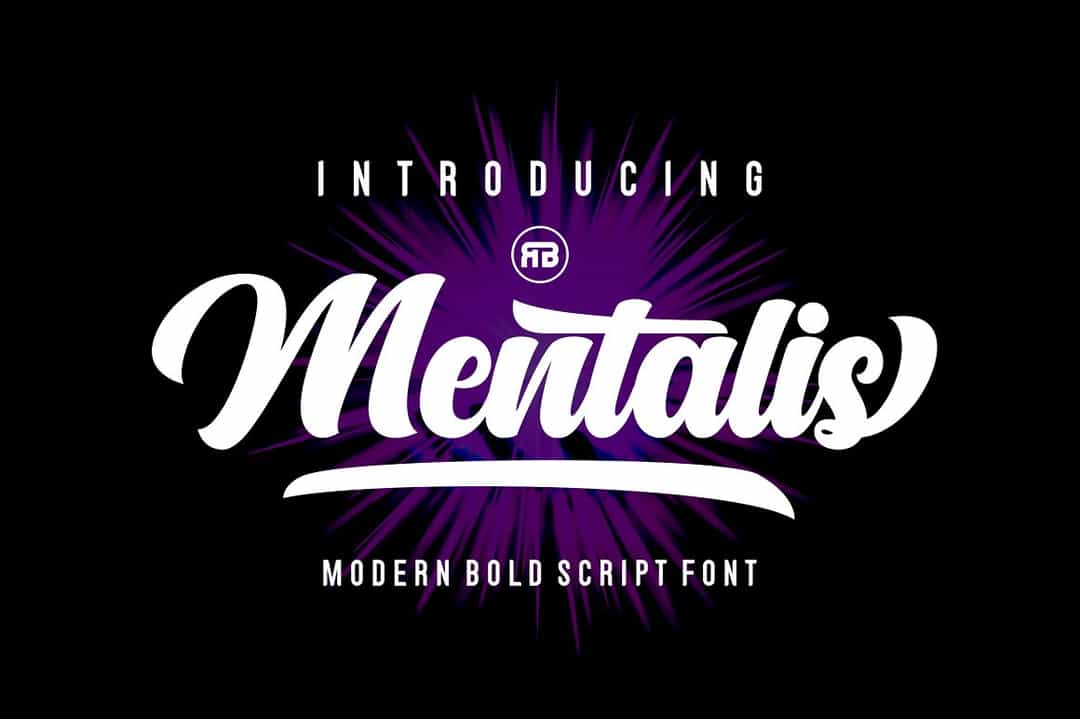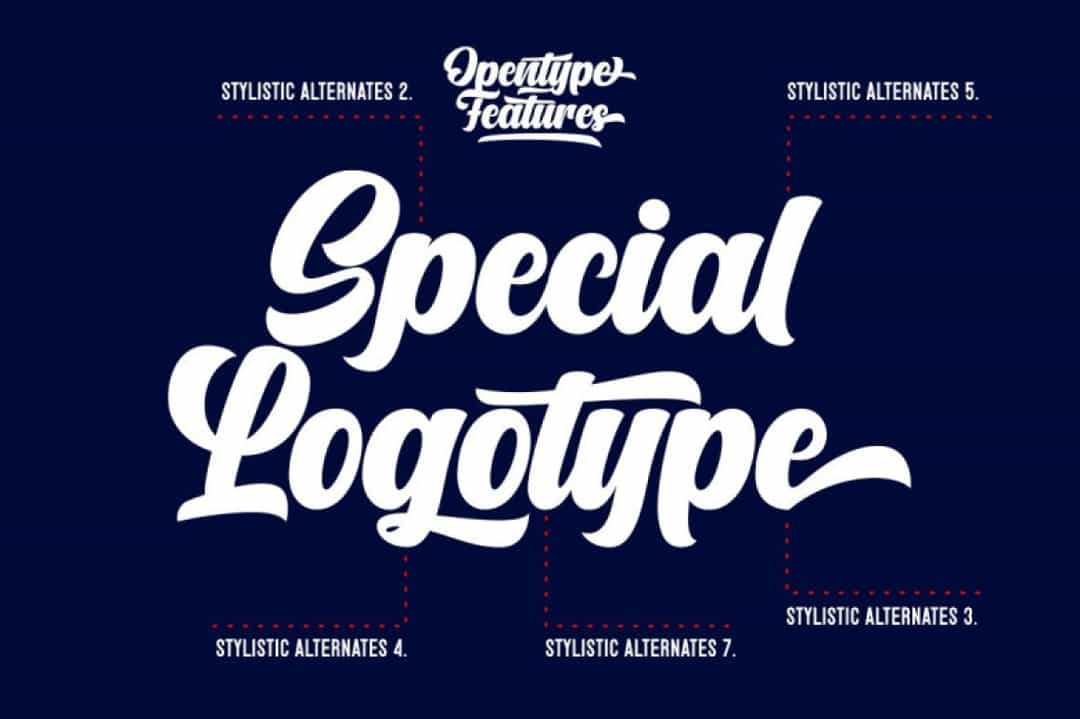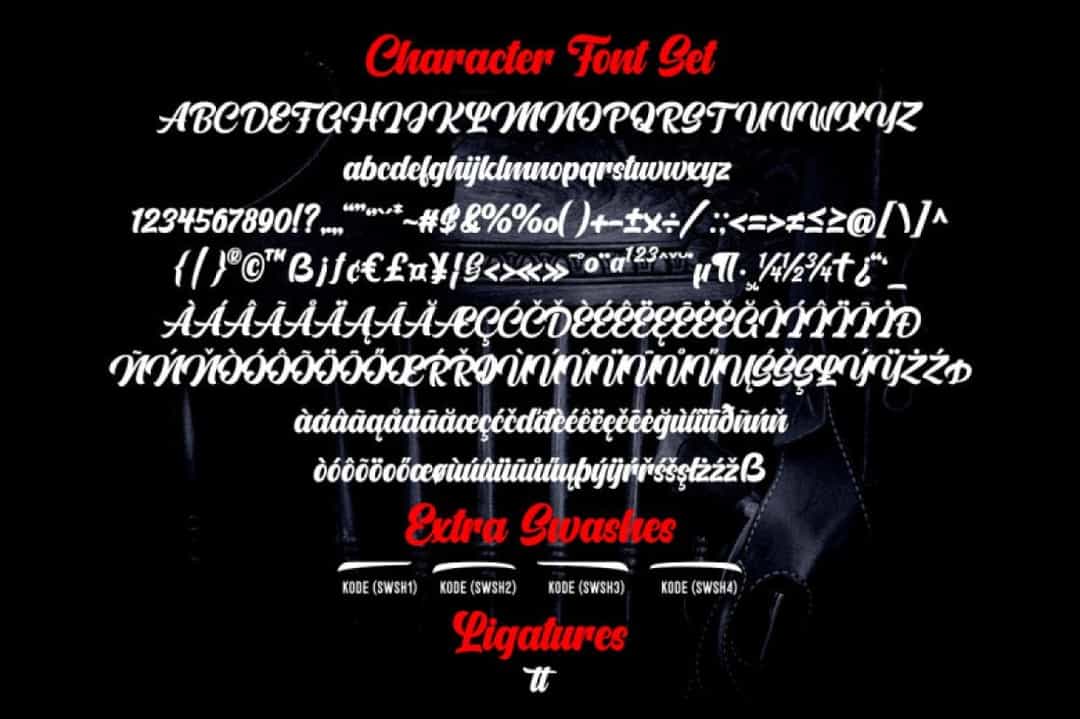
Mentalis is a modern bold script font designed for calligraphy. Carefully constructed to achieve stunning curves and an unparalleled unique shape, Mentalis font comes equipped with lowercase and uppercase punctuation marks, symbols and numerals as well as stylistic set alternative characters such as ligatures and washes for use within calligraphic script.